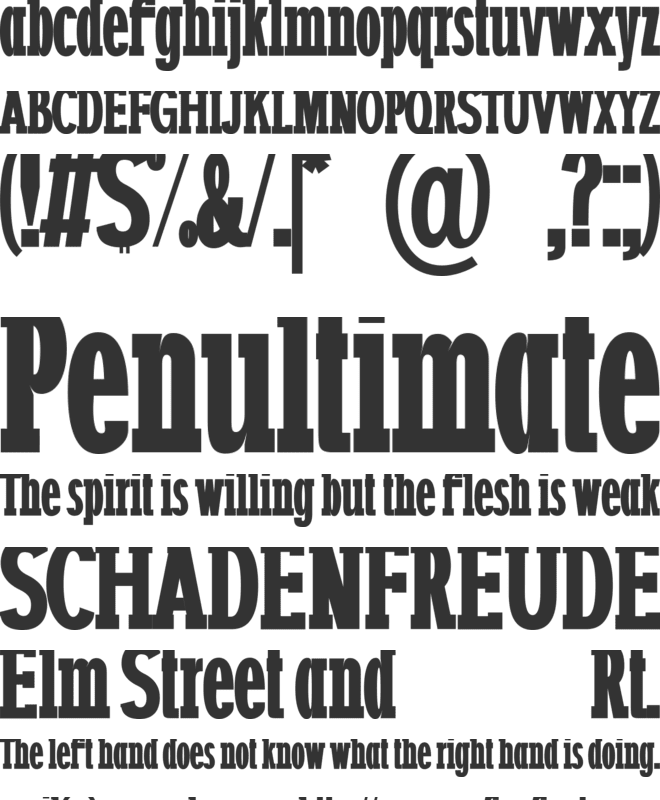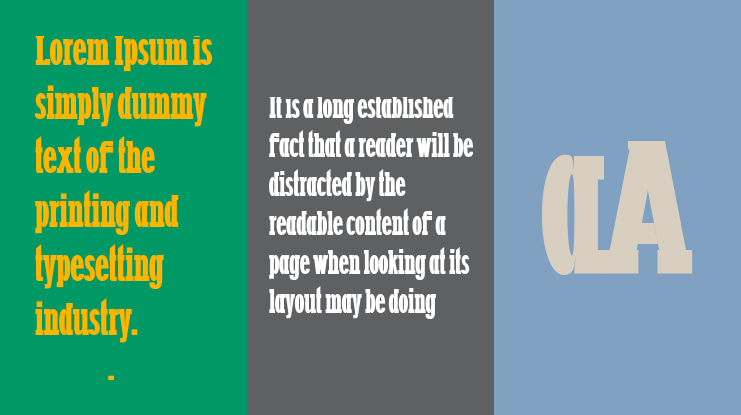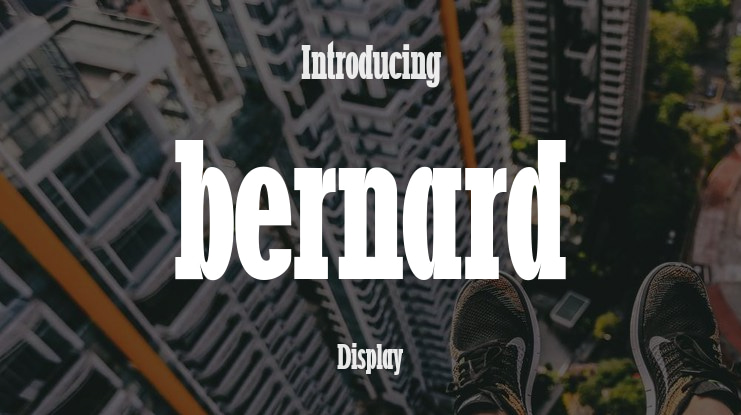
bernard Font Family
Bernard is a condensed slab serif with multilingual support—perfect for editorial headlines, vintage branding, and punchy packaging.